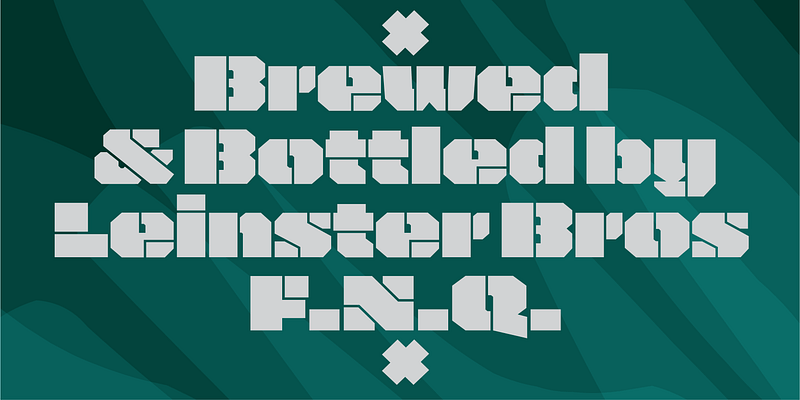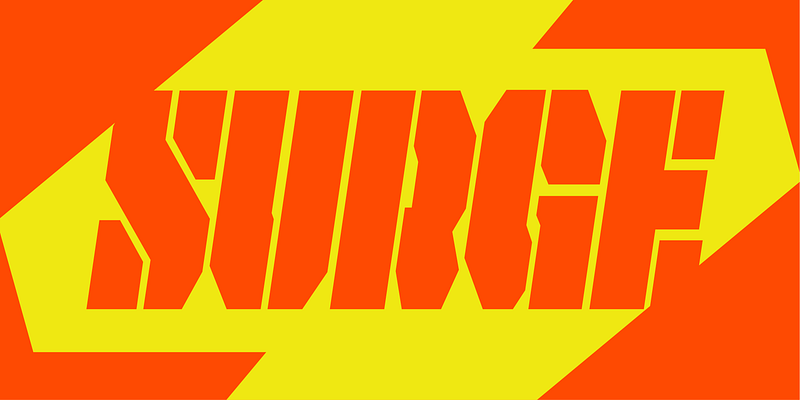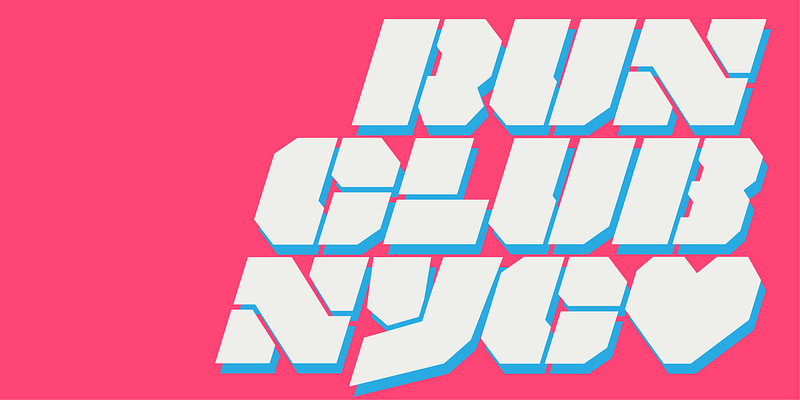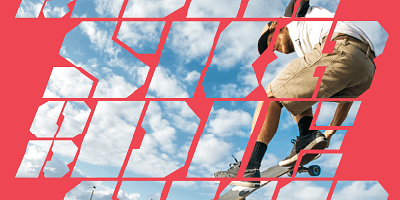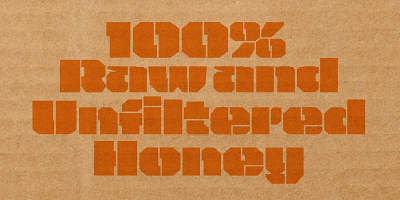
It’s bold, it’s octagonal, and it packs a punch for branding heavy equipment, fast cars, outdoor gear, security, athletic apparel, off-road biking, and surfing culture. With a broad surface area, Bite Stencil+Oblique is made for high-impact environments and statement brands.
Bite includes: Stylistic Alternates for descending uppercase letters to achieve a tight vertical fit, Ligatures, Arrows, Symbols, Capital Punctuation, and Extended Latin language support.
Bite® was designed by Troy Leinster © 2025